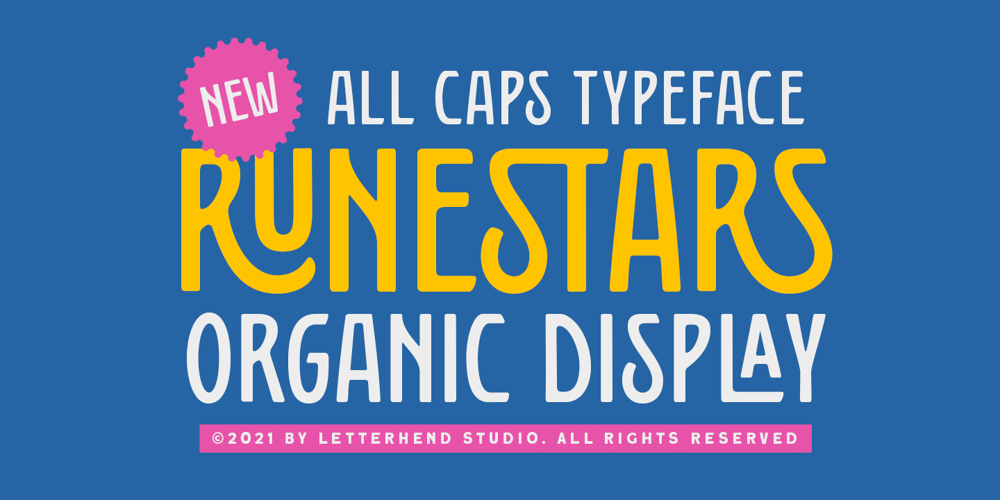
Runestars Font Family was designed by Hendry Juanda and published by Letterhend. Runestars contains 2 styles and family package options. About the Product RuneStars is a organic display typeface with unique ligatures. This typeface has unique looks and strong character with natural looks because it was made by manual hand lettering. This font perfectly made to be applied especially in logo, and the other various formal forms such as invitations, labels, magazines, books, greeting / wedding cards, packaging, fashion, make up, stationery, novels, labels or any type of advertising purpose.Features :Numbers and punctuationStylistic alternatesmultilingualPUA encodedWe highly recommend using a program that supports OpenType features and Glyphs panels like many of Adobe apps and Corel Draw, so you can see and access all Glyph variations.